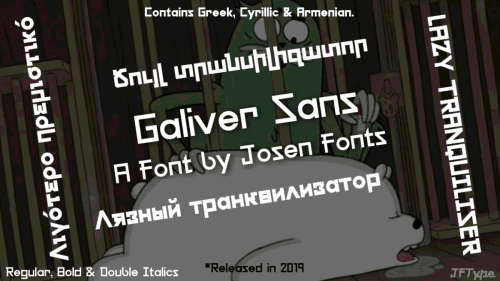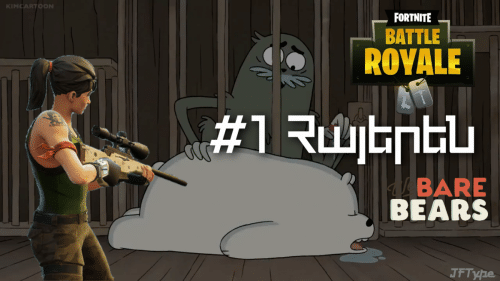
Dislike Imagine Font, Century Gothic & LECO 1976?! Try This!!! Galiver Sans Font has Unicode Blocks such as Latin extended A-Additional, Greek, Cyrillic, Armenian & Georgian. This font is a Successor to Century Gothic & LECO 1976.